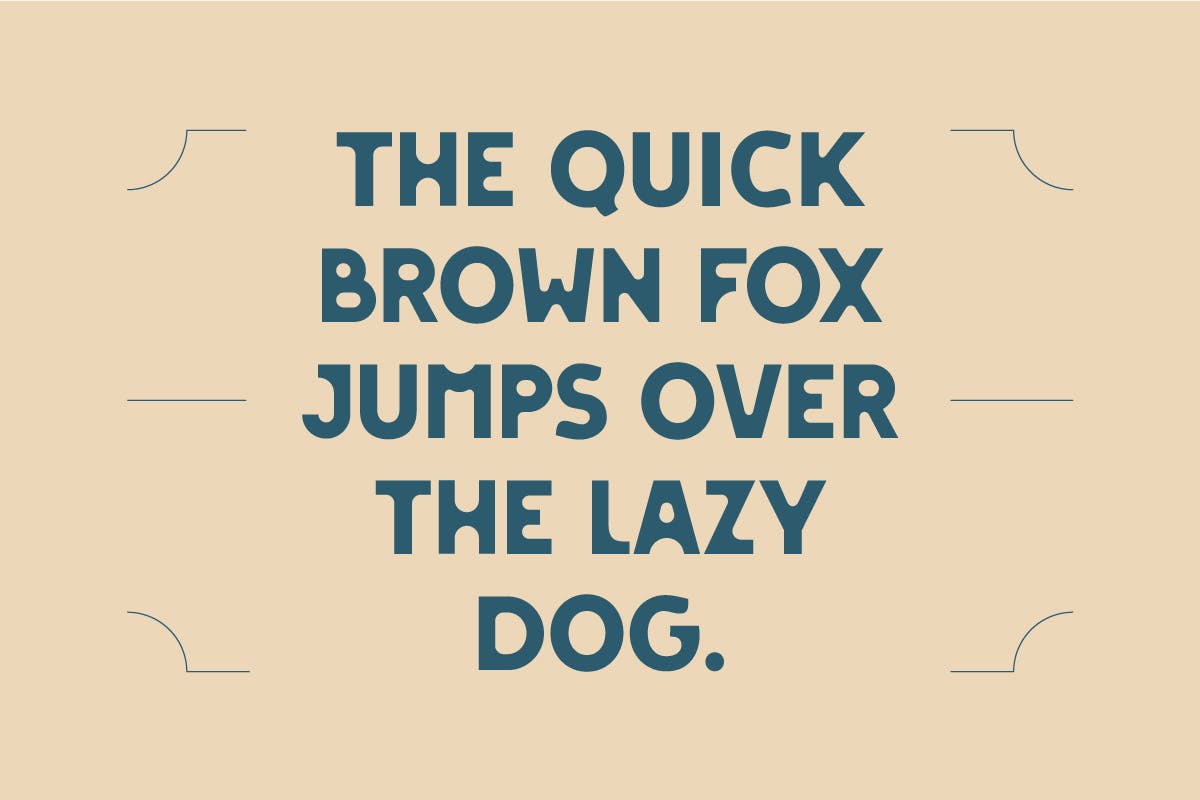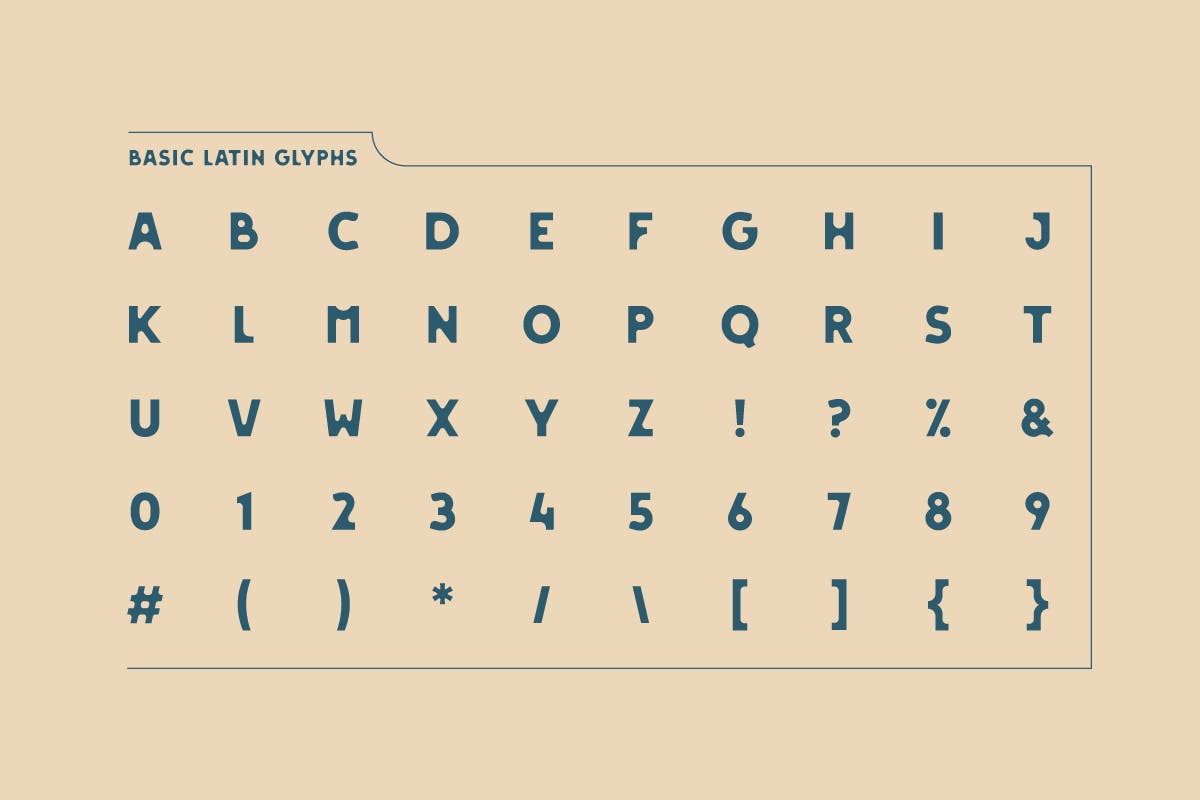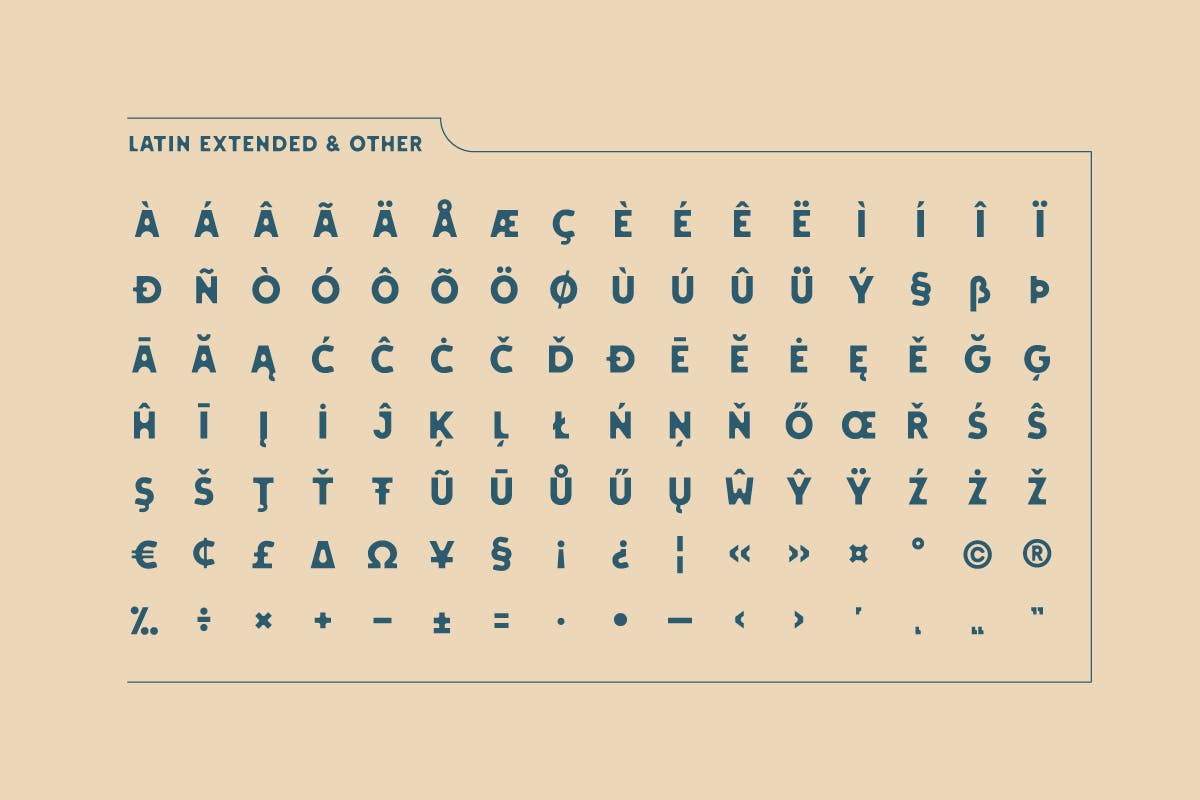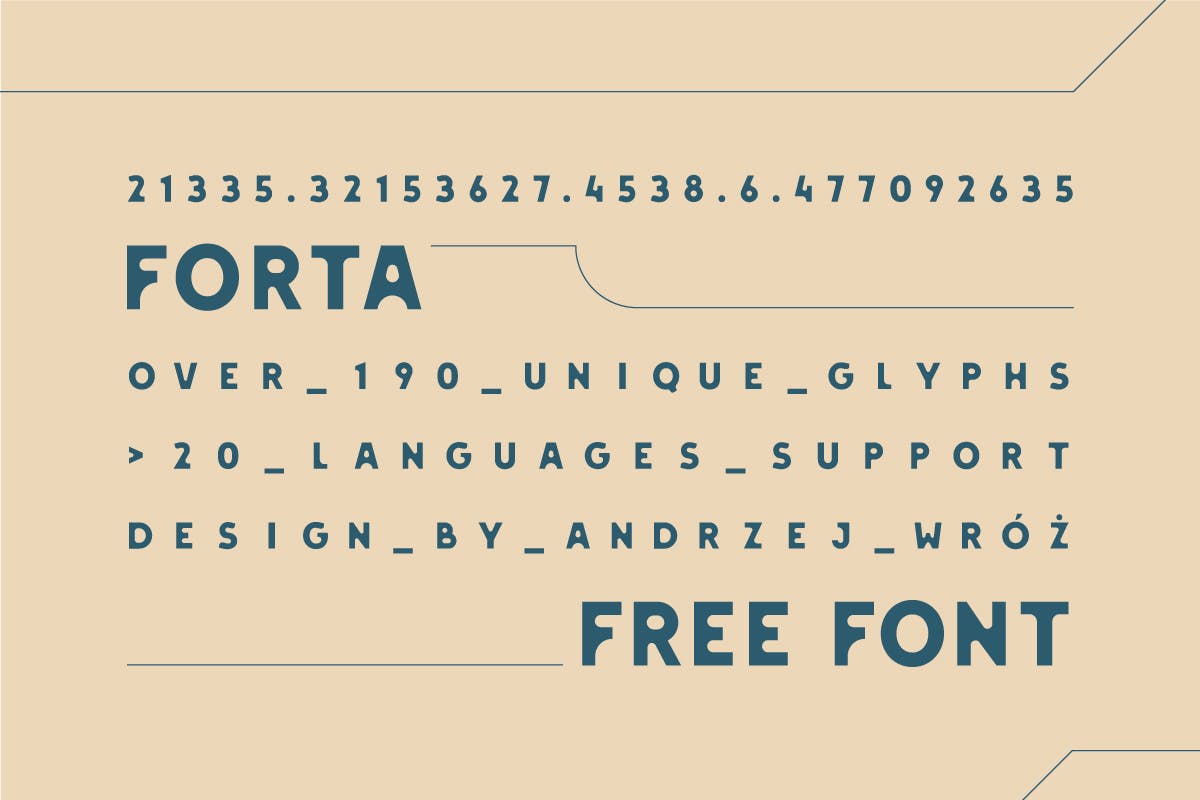
Forta – Free Display Font
Forta – Free Display Font is a luxury display font. It is suitable for your projects such as wedding invitations, flyers, banners, billboards, papers, magazines, and more. This font is also completed with a web font, hence you can choose it based on your need. This primary font is available for the TTF format file that you can install on your devices. So, this free font is a 100% free license.